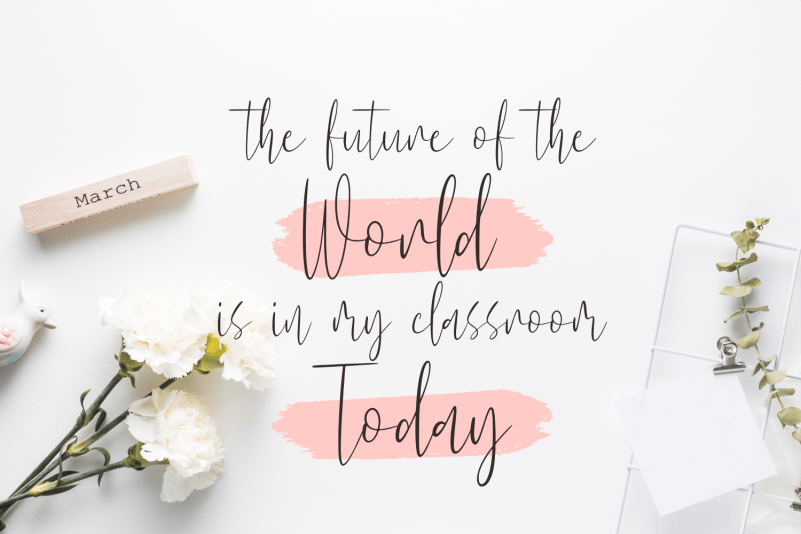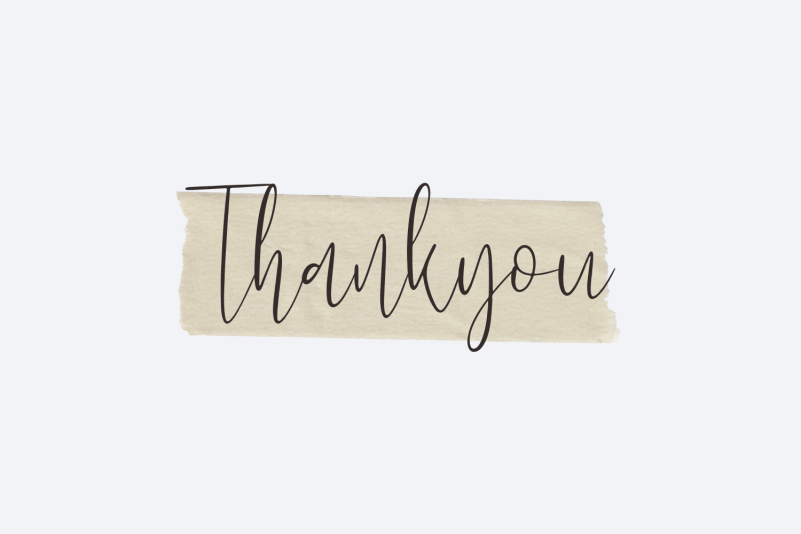
Kishplay Font
Kishplay Font is a fancy and elegant handwritten font specially crafted to impress your audience and make your brand shine. Use it for your headings, logos, ads, printed quotes, packaging, websites, and social media, and make them come alive!